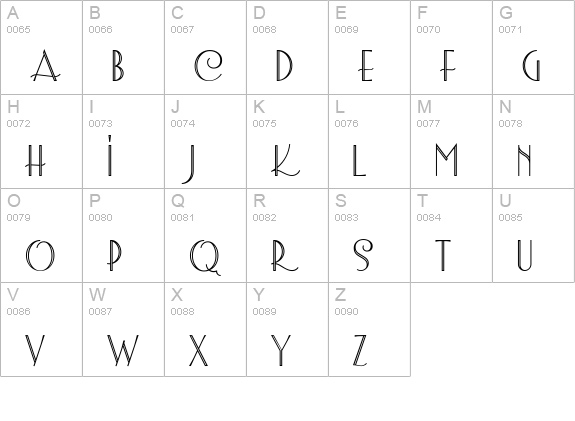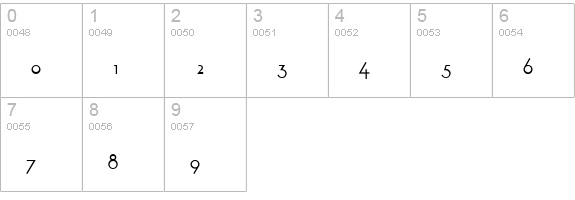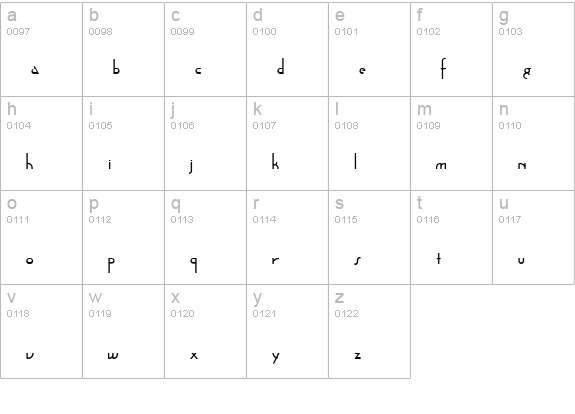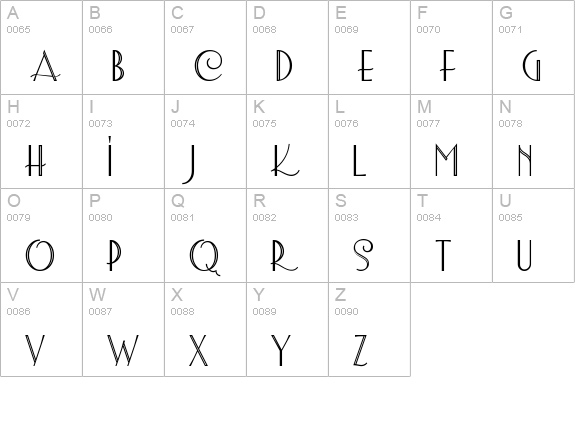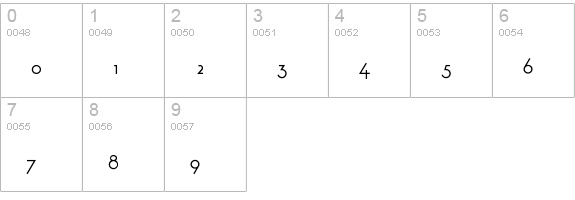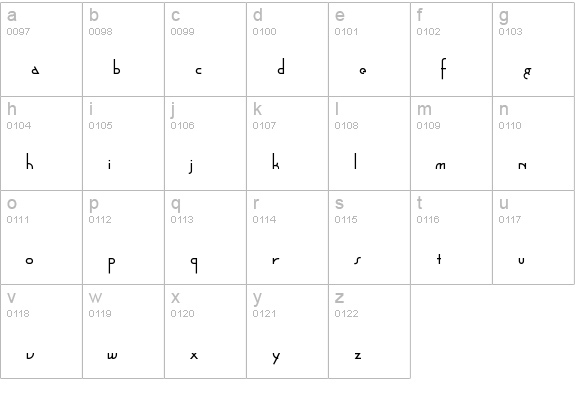
Astoria Titling Nf Font Details
Astoria Titling Nf is a sophisticated and elegant font that exudes a sense of timeless charm and classic beauty. Its sharp, clean lines and graceful curves make it a versatile choice for a wide range of design projects, from formal invitations to branding materials. The font's delicate serifs and stylish letterforms add a touch of refinement and sophistication to any design. Astoria Titling Nf is not only visually stunning but also highly functional, making it an excellent choice for both print and digital applications. Whether you're creating a logo, a poster, or a website, this font will help elevate your design and give it a polished, professional look. Best of all, Astoria Titling Nf is free to download at FontsMarket.com, making it accessible to designers of all levels. With its timeless appeal and versatile design, this font is sure to become a staple in your typography toolkit.